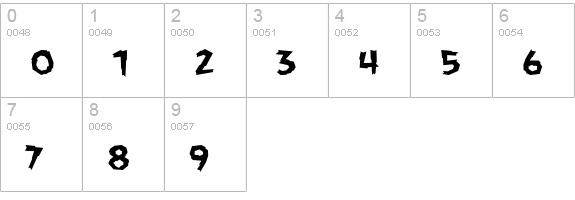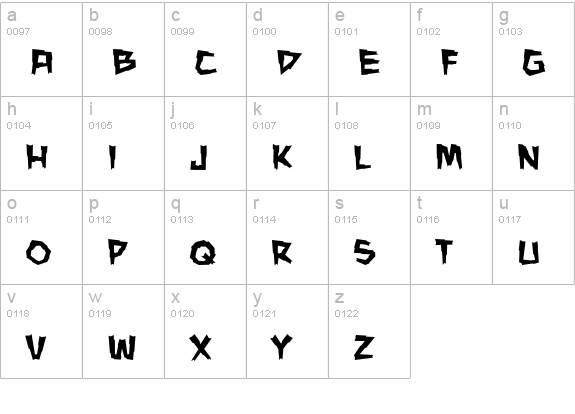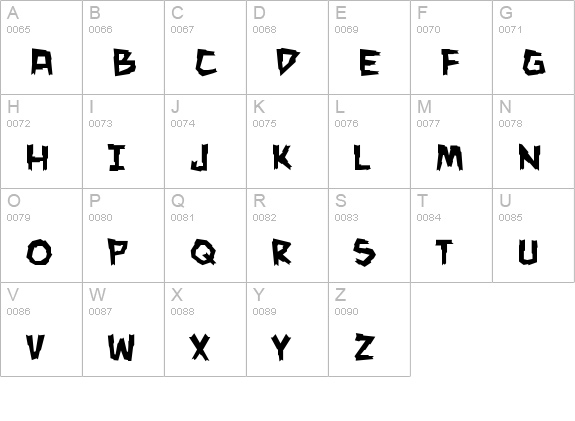
ManEater BB Font Details
ManEater BB font is a bold and striking display typeface that exudes strength and power. With its sharp edges and unique design, this font demands attention and makes a statement. Perfect for headlines, logos, and branding projects that require a strong and memorable typeface. The best part about ManEater BB font? It's completely free to download at FontsMarket.com! That's right, you can add this eye-catching font to your collection without spending a penny. Don't miss out on this opportunity to enhance your design projects with the bold and impactful ManEater BB font. Download it today and let your creativity roar!